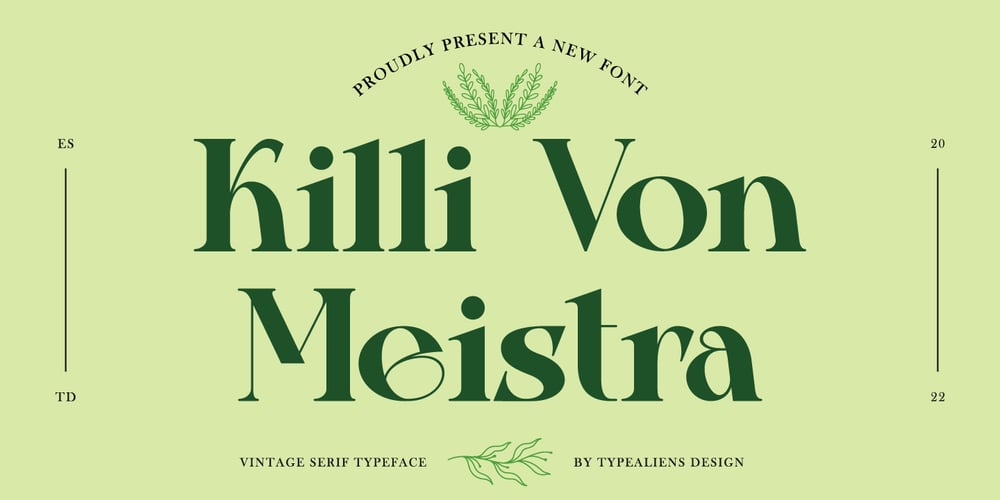
Killi Von Meistra Font Family was designed by Ilham Wahyu and published by Ilhamtaro. Killi Von Meistra contains 1 styles and family package options. KILLI VON MEISTRA is a unique and beautiful serif font with a vintage feel but also suitable for modern designs such as magazines and social media.To enable the OpenType Stylistic alternates, you need a program that supports OpenType features such as Adobe Illustrator CS, Adobe Indesign & CorelDraw X6-X7.Cheers!